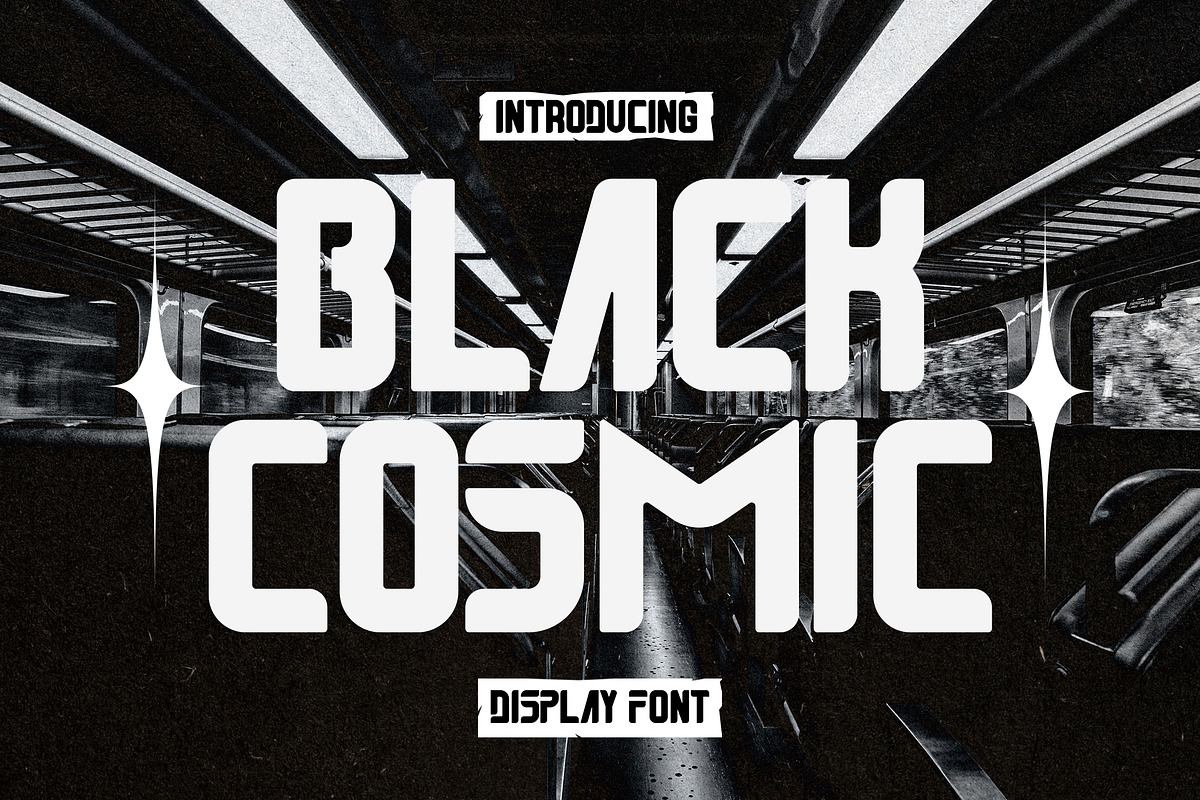
You must purchase this font for commercial use. However, you can download Black Cosmic Futuristic Y2K Display Font Free Download for testing purposes. Black Cosmic is a bold and futuristic font designed with the Y2K aesthetic in mind. Its sharp, geometric letterforms combined with cosmic elements make it perfect for projects that need a high-tech, sci-fi, or space-inspired look.
The sleek, edgy design of Black Cosmic brings a sense of innovation and cutting-edge technology, making it ideal for tech-related brands, futuristic event posters, video game graphics, and digital media projects. Whether you're designing a futuristic logo, creating a retro-futuristic brand, or working on a sci-fi campaign, this font adds personality and visual impact to your typography.